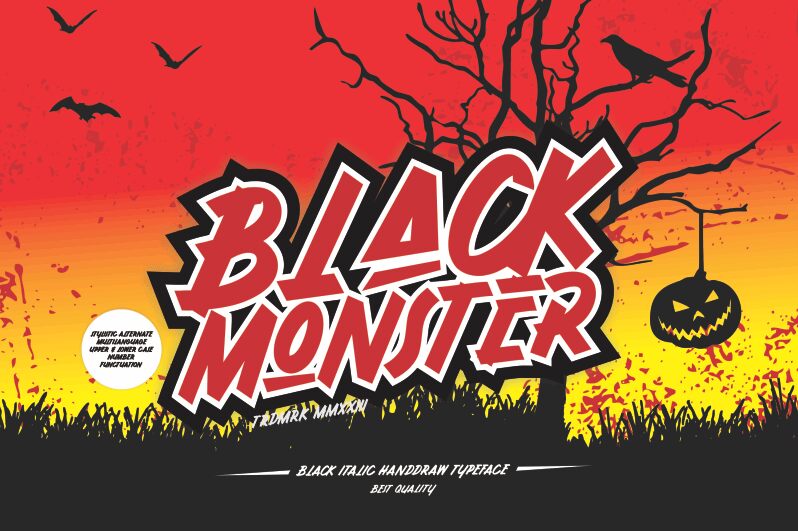
BLACK MONSTER
Black Monster font by Creativework69 Studio is a free bold brush font with an energetic and angular design. Perfect for making a striking impact, this vintage-inspired typeface carries a nostalgic flare along with modern edginess. Its imperfect strokes complete the retro theme for your creative designs.
The special use cases include band album covers, musician merchandise, branding, quotes, clothing prints, website designs, badges, and logos. Editable invitations with varying themes will also contain the magical designs of Black Monster as well as business cards and typography artwork among others.